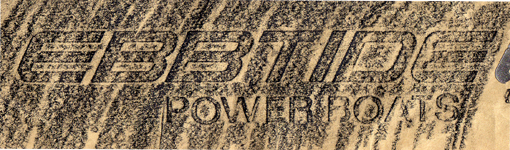
Font ID Please
Ebbtide, I've got to reproduce this for a boat repair.
Dave, it looks like the same font that you use in your logo, just give it a slant.
That looks like a 10 minute trace job to me. You only have 3 semi-difficult letters to do.
It's similar to mine but different...I've got about another 5 minutes and I'llhave it done, but wasjust tryingto save me the labor.
I use the Corporate trademarks & logo book for that kinda stuff